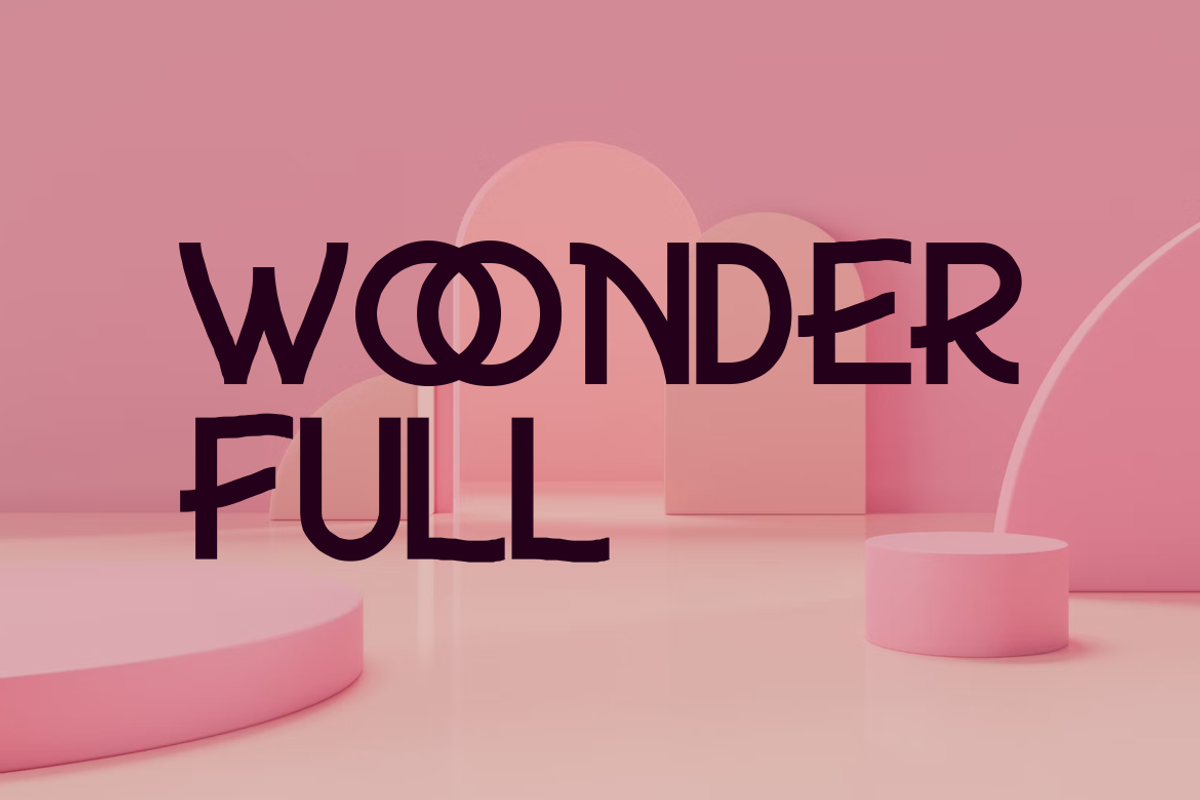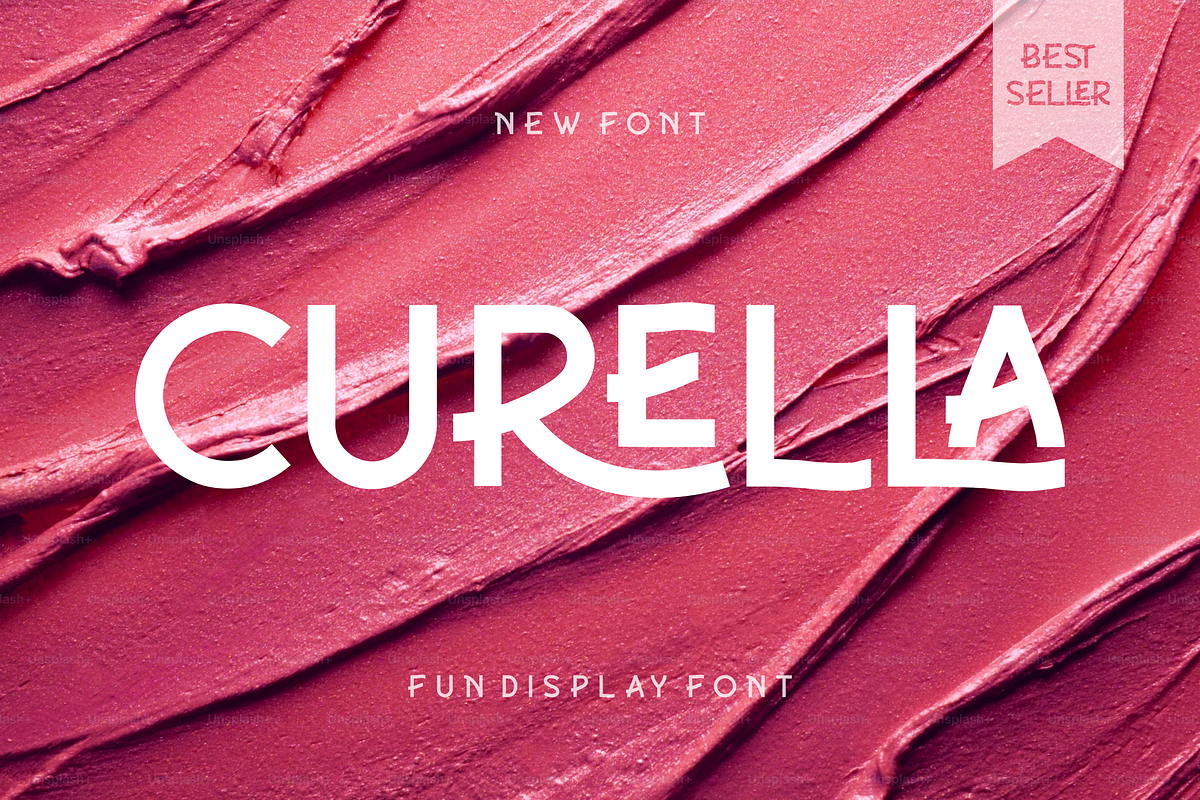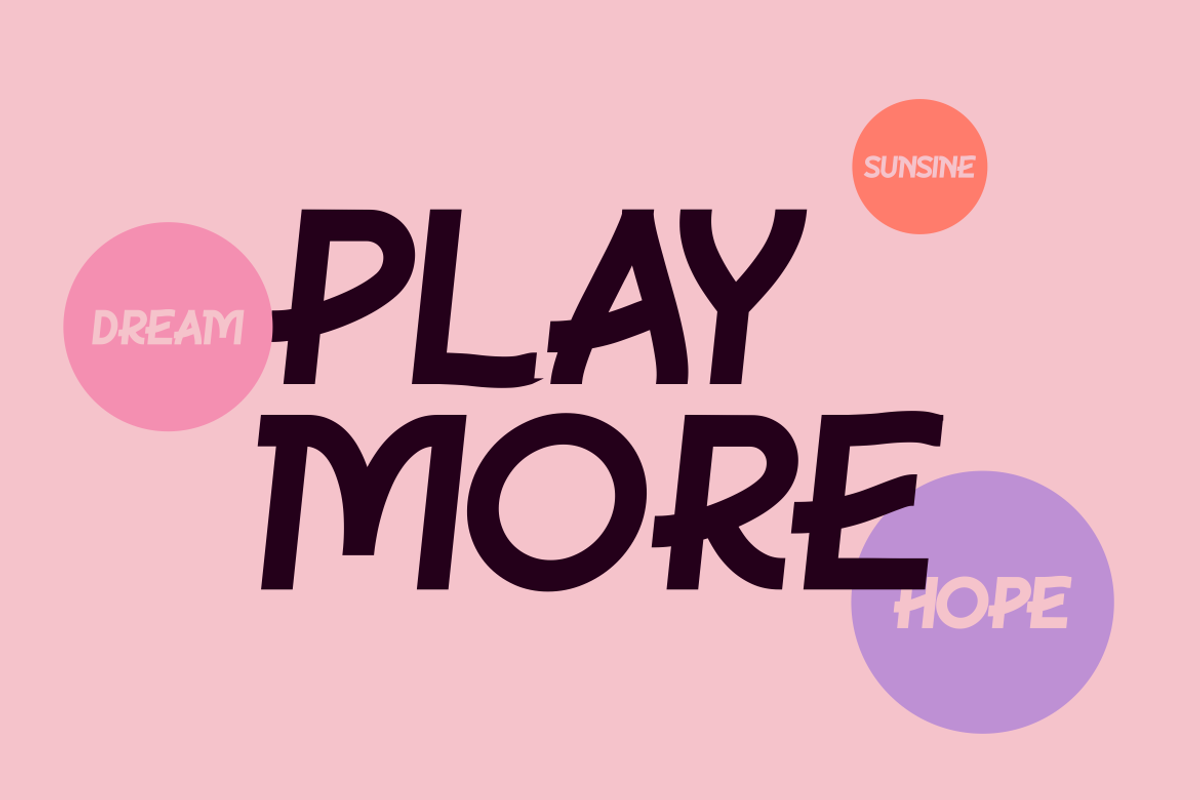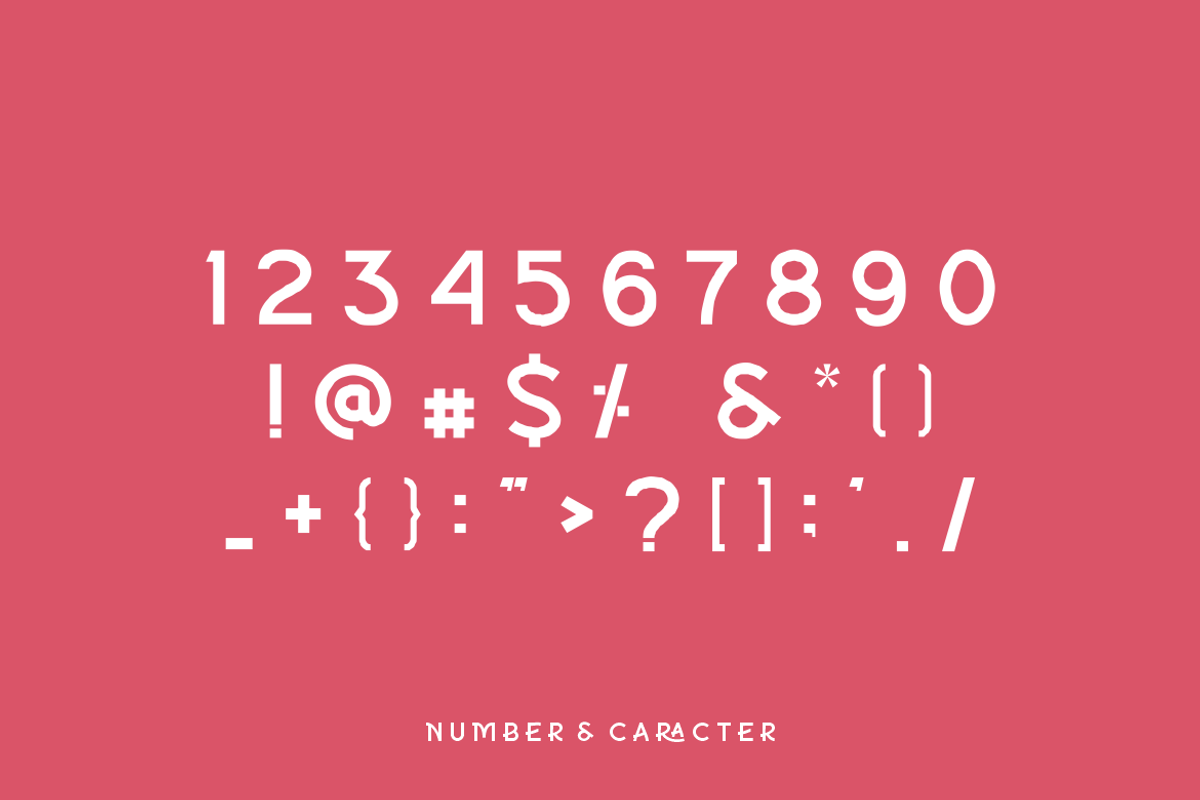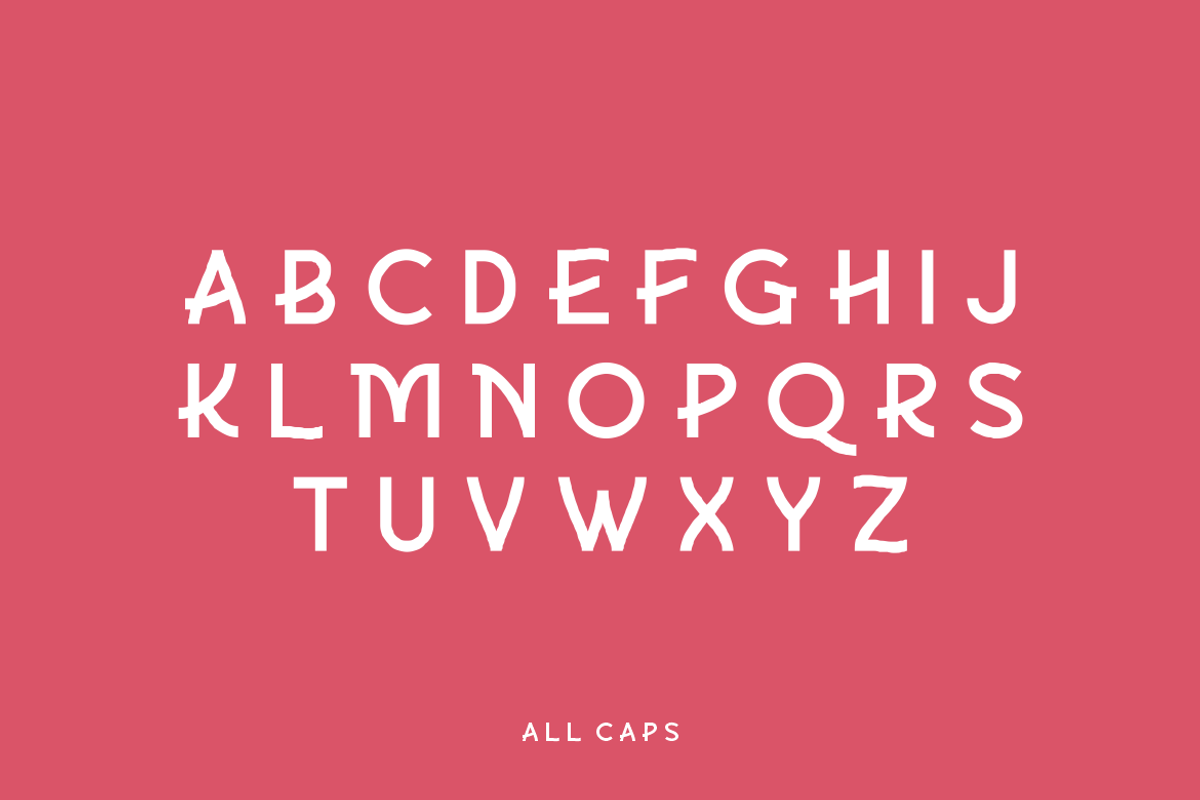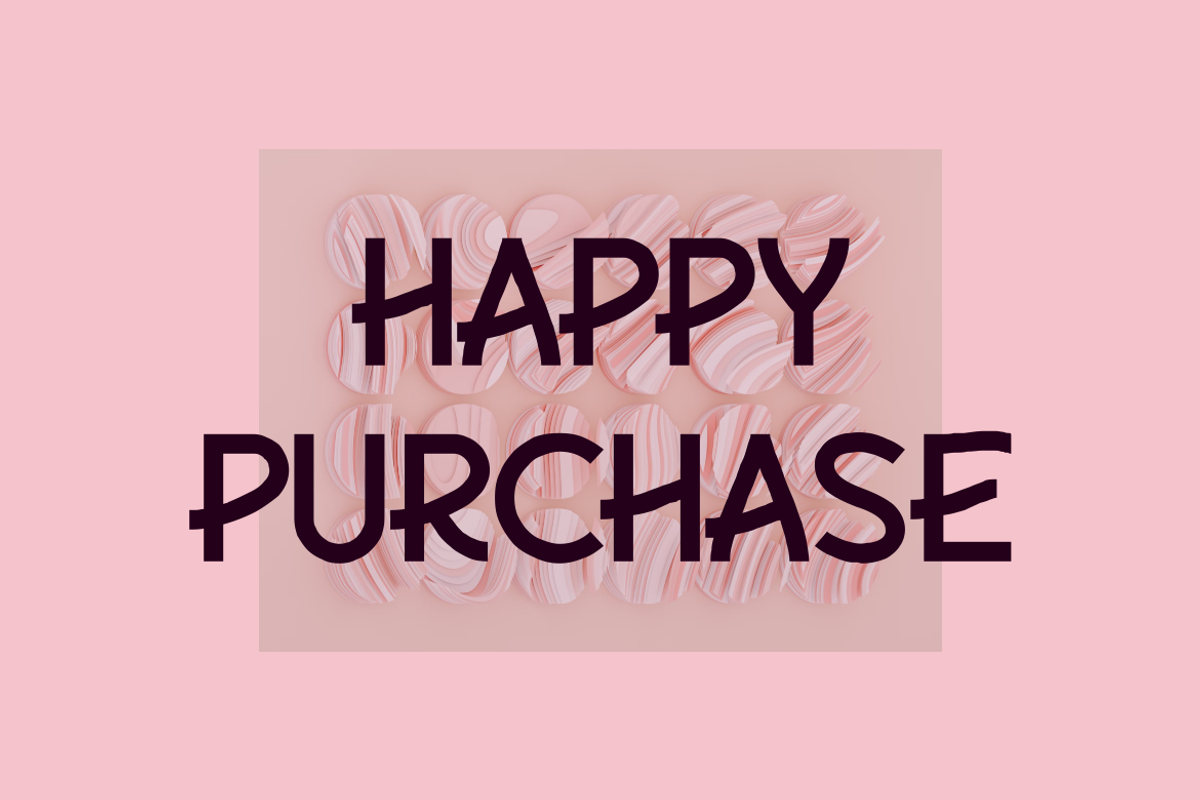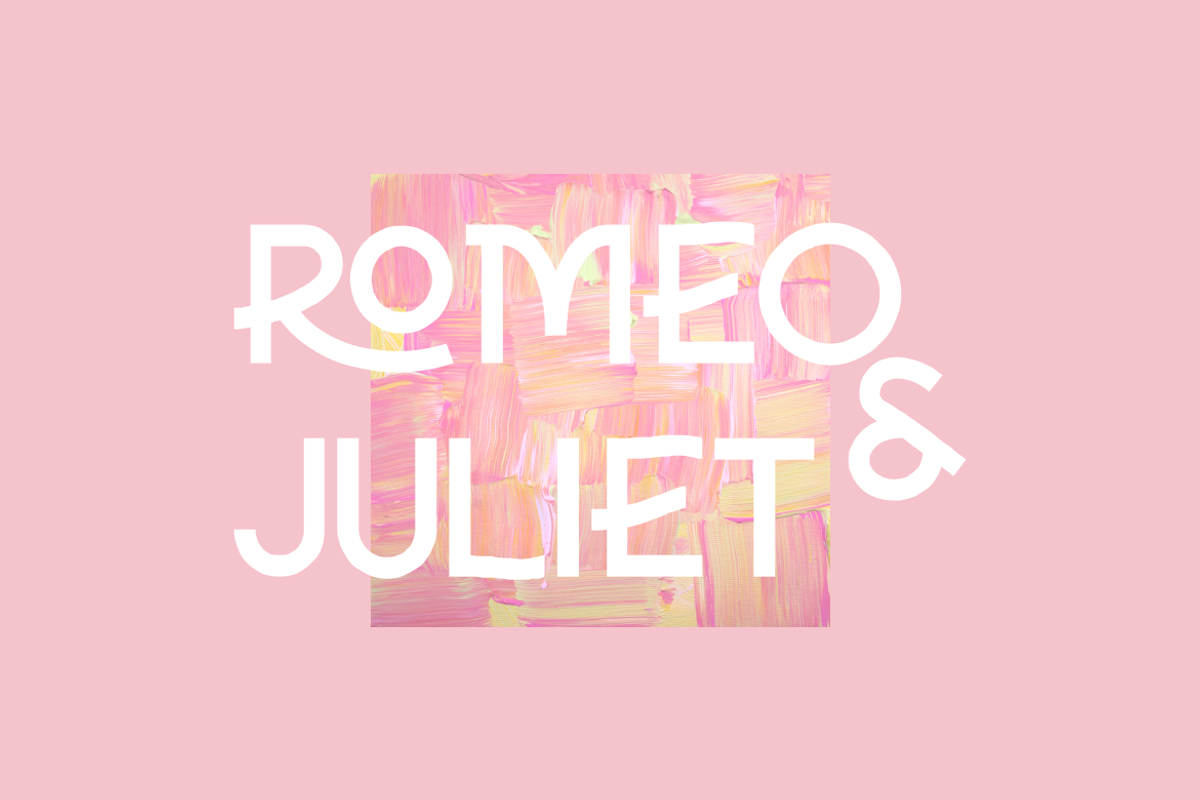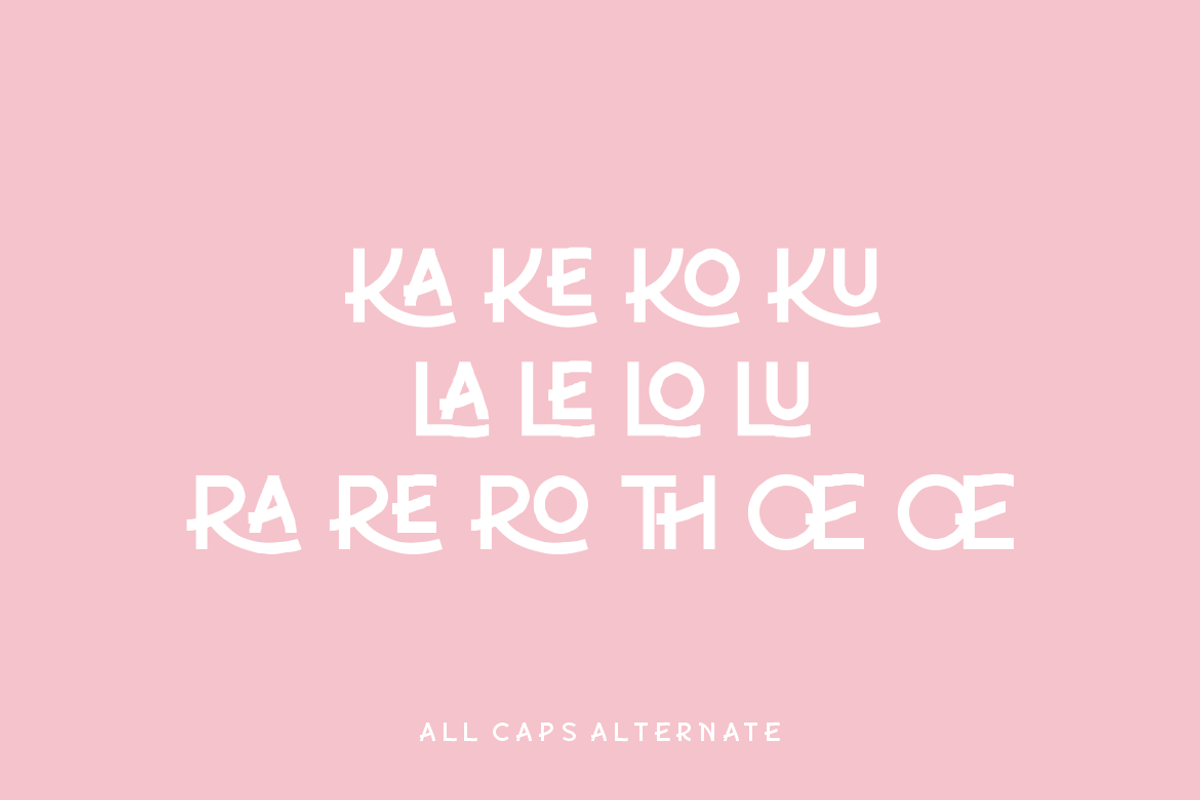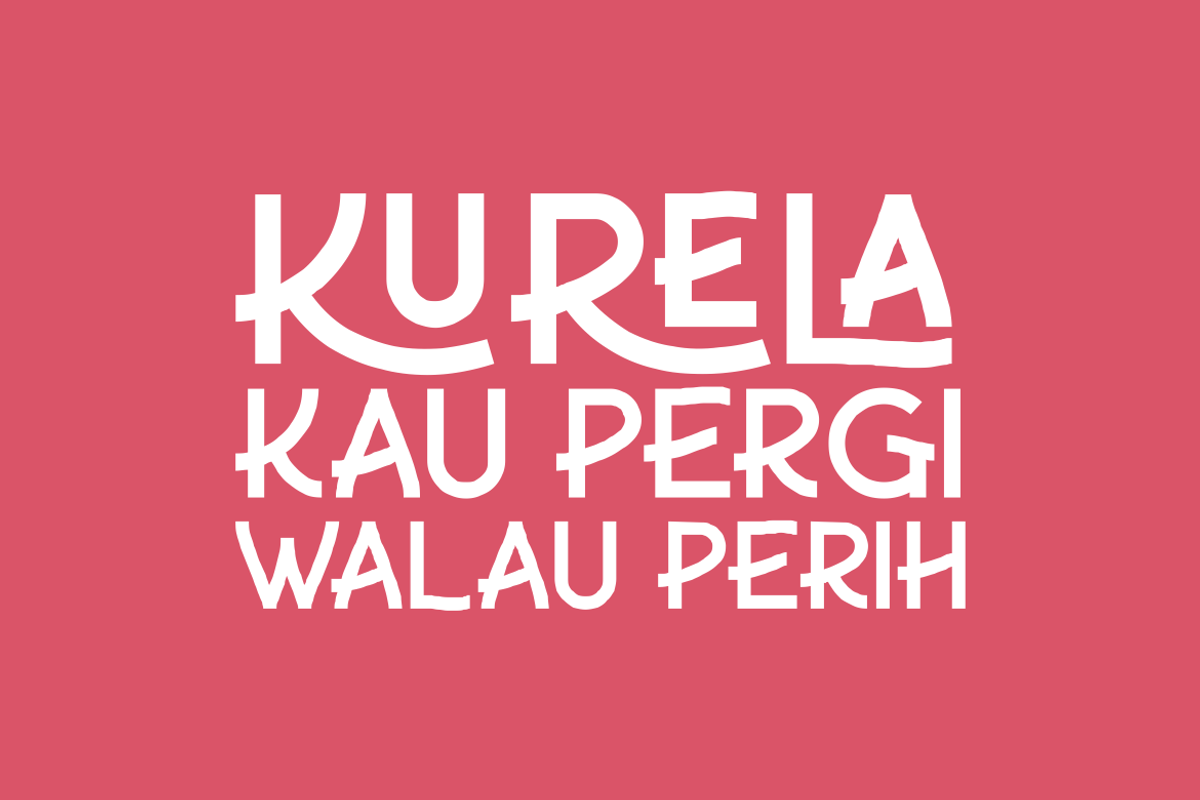
Curella
CURELLA
A fun stackable display font that lives up to its name. The way you can uniquely stack different parts of this font makes it super fun to work with! Perfect for all purposes. Pairs well with bold sans serifs. CURELLA features:
THIS ENTIRE FONT IS CAPITALIZED